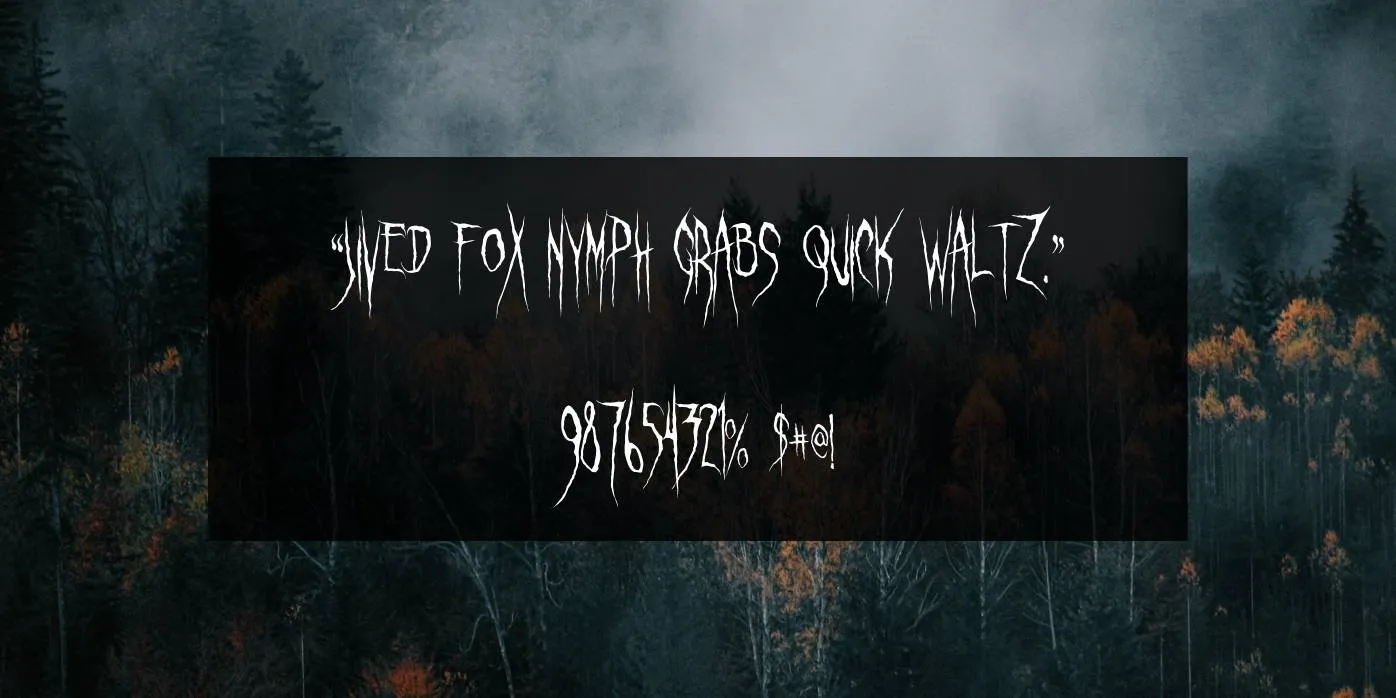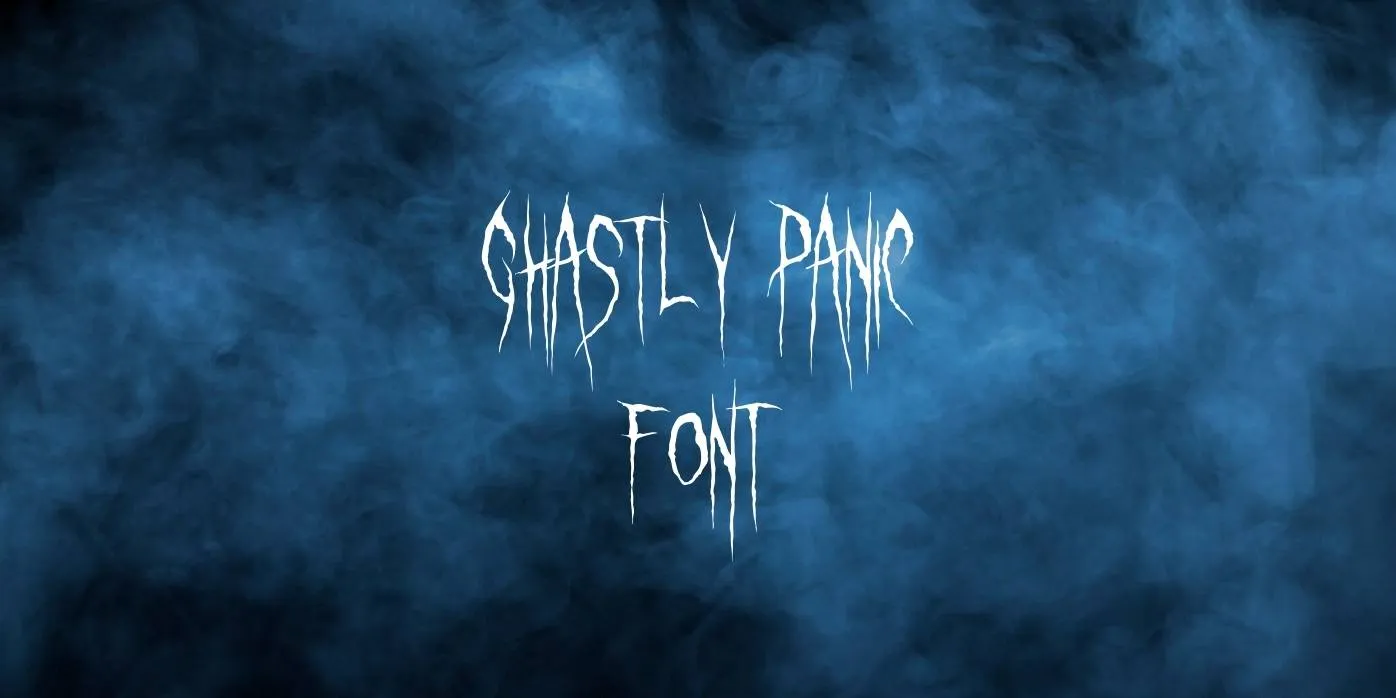
Ghastly Panic Font
In this post, we introduce a classic typeface that is known by the name Ghastly Panic Font.  This typeface was designed by Sinister Fonts. It is included in a fancy font. The main aim of this post is to provide the user with all of the necessary information about this typeface so that they can use it for their own personal and commercial purposes. Ghastly Panic Font is a horror-themed display font that was inspired by classic horror movies.
It is perfect for creating spooky and Halloween-themed designs. The font includes upper and lowercase letters, numbers, and punctuation marks. It also supports international characters. You can also use bosox font which is closest to this font family.